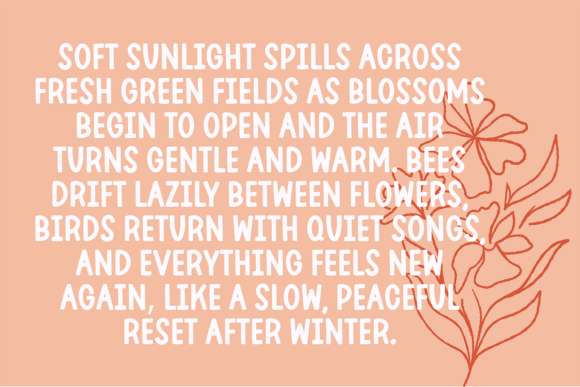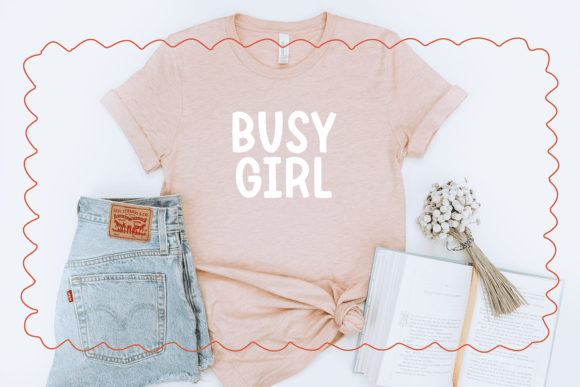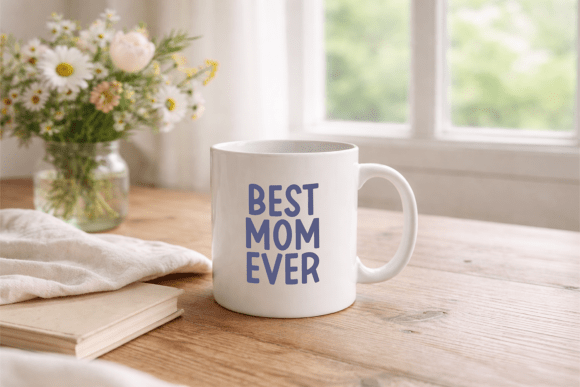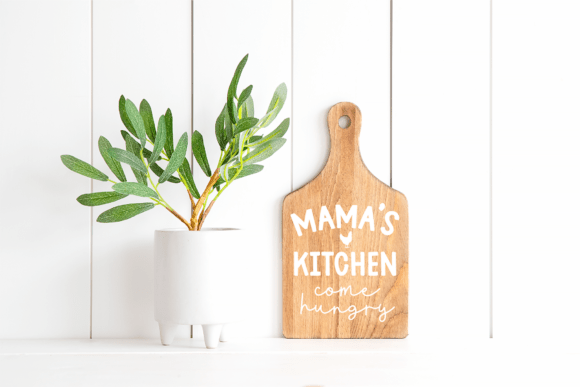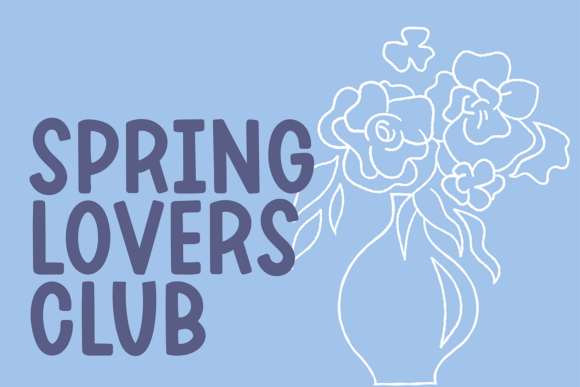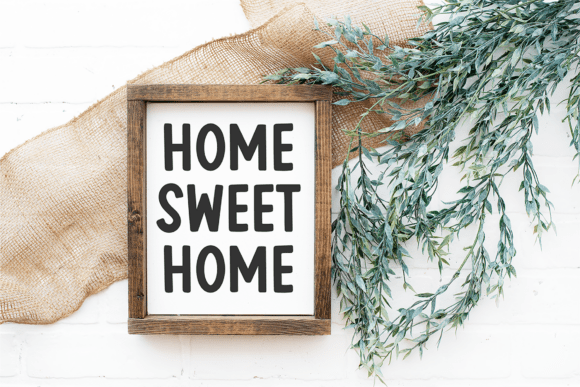
Introduction to Paris Treat Font
Paris Treat Bold | Chunky Bold Font | Thick Retro Display Font for Cricut, Canva, T-Shirts, Logos, Stickers, Social Media This chunky bold font is perfect for Cricut, Canva, and eye-catching design projects.
With thick, heavy letters and a playful, bold style, itโs ideal for t-shirts, stickers, logos, social media graphics, and standout branding Designed to grab attention, this font features strong shapes and smooth curves that cut cleanly on Cricut and Silhouette machines.
Paris Treat Font offers exceptional quality and versatility, making it a valuable addition to your design toolkit. Whether you’re creating for personal projects or commercial use, Paris Treat Font delivers professional results.